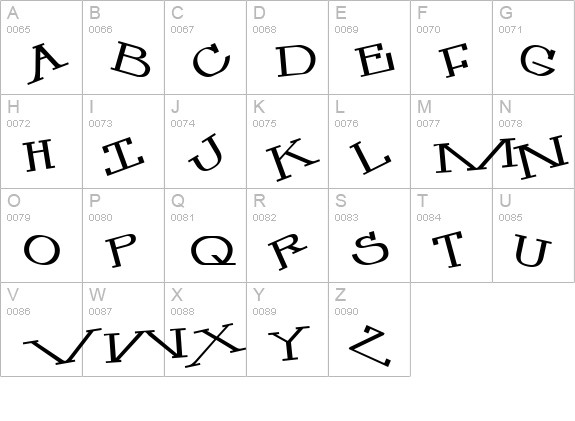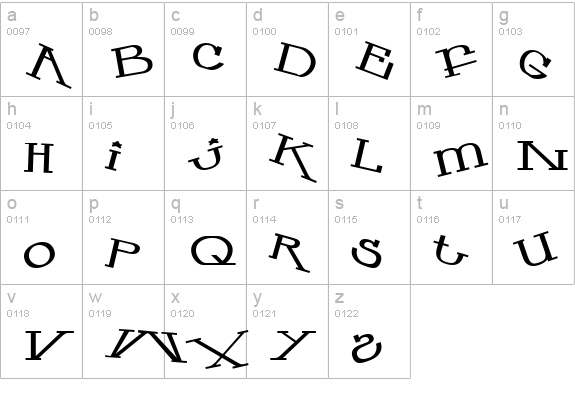
Mastillo2 Revisit Font Details
Introducing Mastillo2 Revisit Font, a captivating and versatile typeface that effortlessly combines modernity with timeless elegance. This font is perfect for those seeking a unique and eye-catching design for their projects. With its clean lines and balanced proportions, Mastillo2 Revisit Font exudes a sense of sophistication and professionalism. Whether used for branding, advertising, or any creative endeavor, this font is sure to make a lasting impression. What sets Mastillo2 Revisit Font apart is not only its striking aesthetic but also its accessibility. It is available for free download at FontsMarket.com, making it an excellent choice for designers, students, and anyone looking to add a touch of style to their work without breaking the bank. The versatility of Mastillo2 Revisit Font is evident in its ability to adapt to a wide range of design concepts. From minimalist and modern to elegant and vintage, this font effortlessly complements various themes and styles. Its extensive character set includes uppercase and lowercase letters, numbers, punctuation marks, and special characters, ensuring that your creativity knows no bounds. Whether used for print or digital media, Mastillo2 Revisit Font delivers exceptional legibility and readability, ensuring that your message is communicated effectively. Its carefully crafted letterforms provide a harmonious balance between elegance and clarity, making it a top choice for headlines, titles, and body text. With Mastillo2 Revisit Font, you can elevate your design projects to new heights. So why wait? Download this remarkable font for free at FontsMarket.com and let your creativity soar.